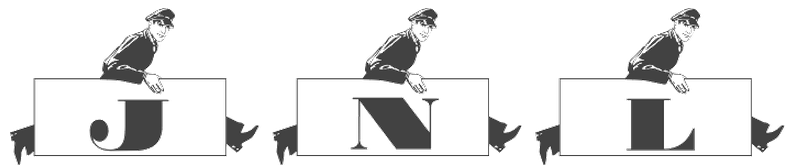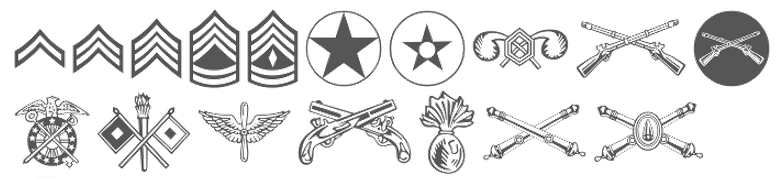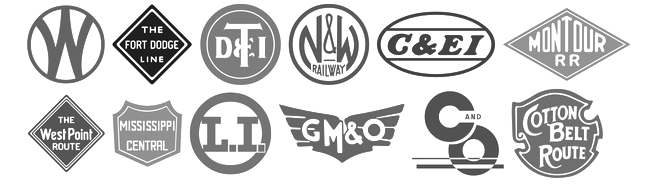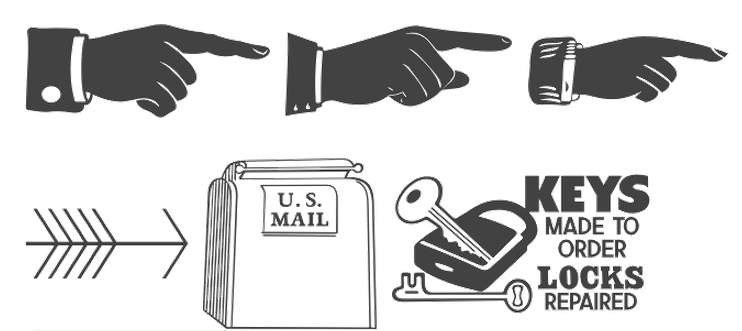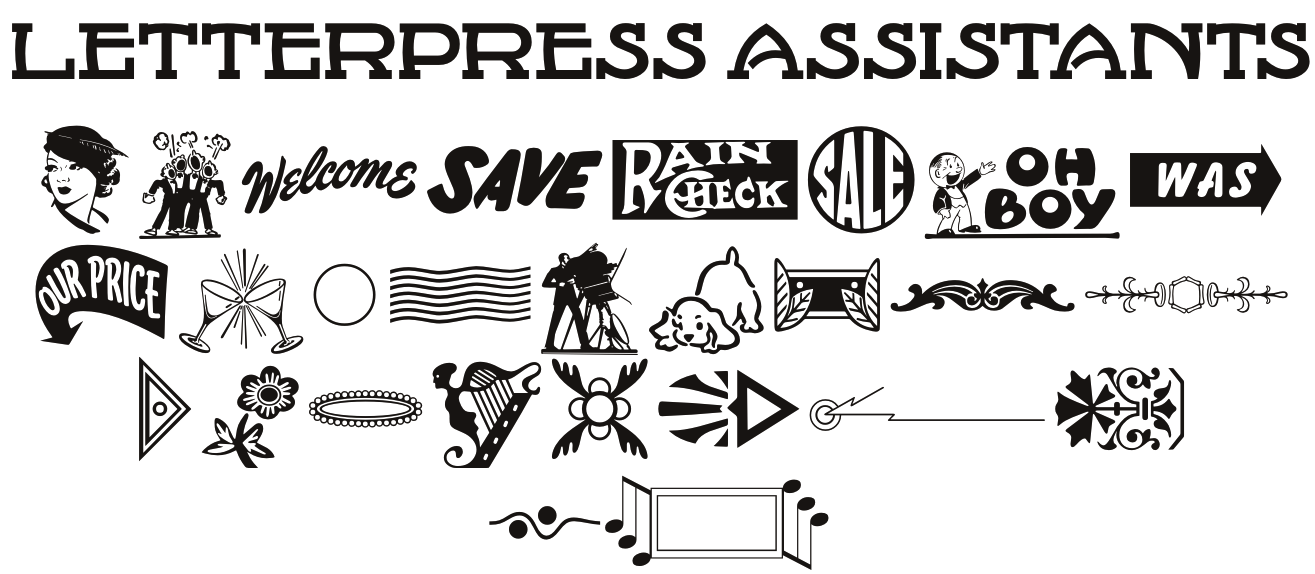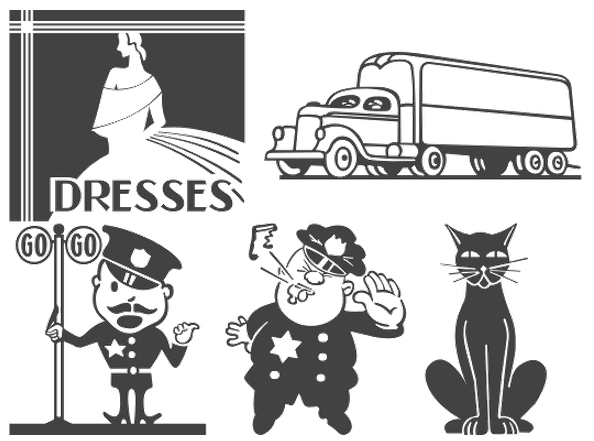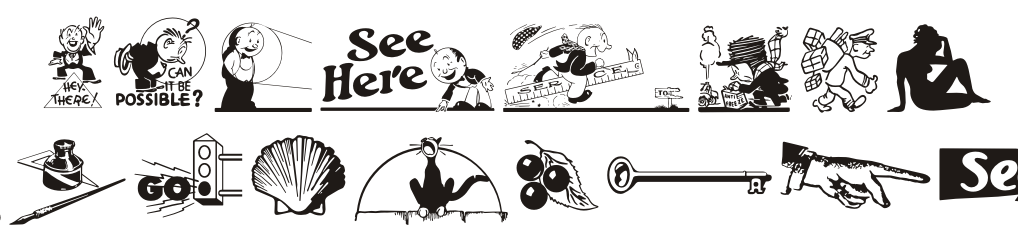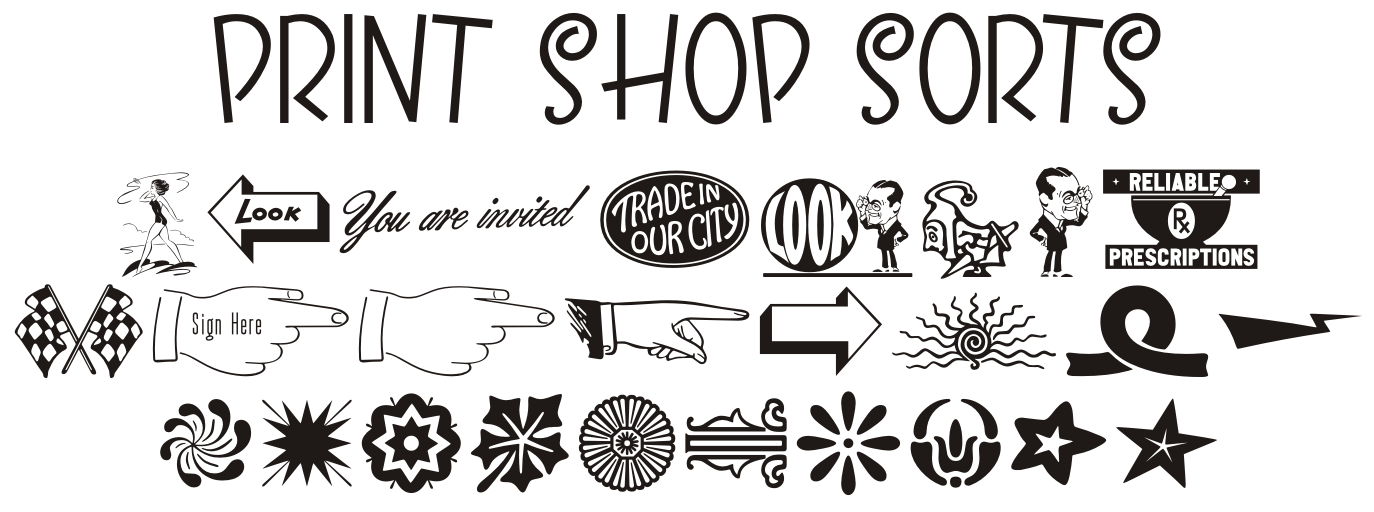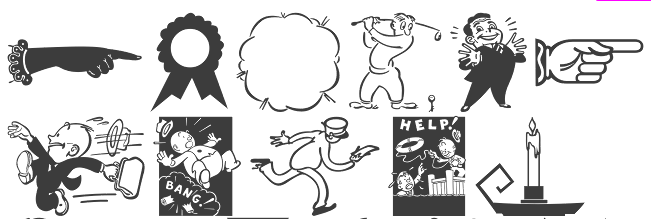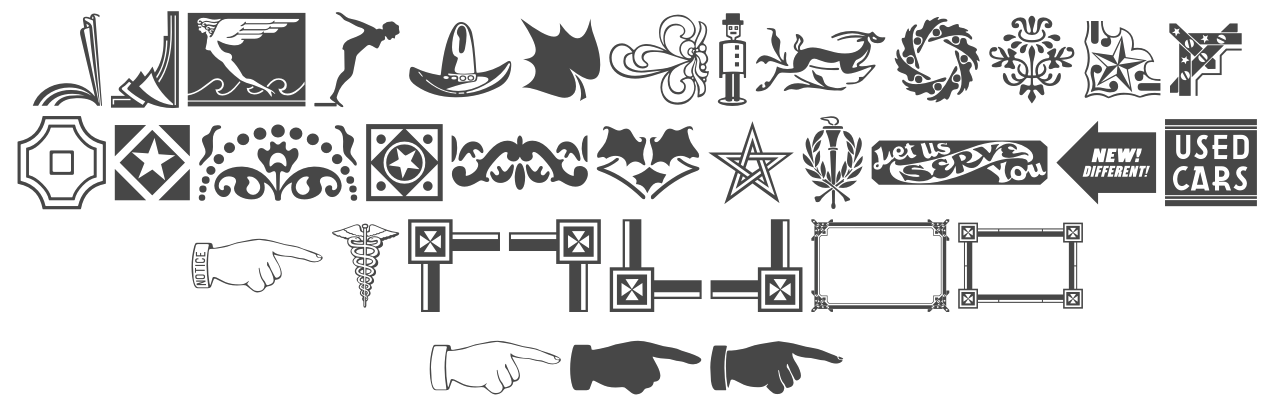
Before 2006, Jeff Levine was mostly known for his free dingbats, having made over one hundred of them. He keeps making them, but now commercially, and less frequently. The list is long though: Dingbats: 50s Yesterdings, Action is the Sequel, ActionIsJL, Alpha Test, Another Dingbat Font JL, Antique Decorations JNL (2012), Antique Embellishments JNL (2009, nice 1800 style dings, including a great fist), Antique Ornaments JNL (2009), Antique Stencils JNL (2013), Apartment-Life-JL, Artsy Parts JL, Attention Getters JNL (2009), Auto-Store-JL, Bachelor Pad, Bank-Visit-JL, Bijou, Boat Decals JNL (2008, squarish), BookshelfTitlesJL, BottomsUp!JL, Buttons-and-Switches-JL, Carnival Days, City-Signs-JL, Clown Alley JNL (2009, clown faces), Cobb-Shinn-Stock-Cuts (7 fonts), Collected-Dings-JL, Columbia Shuttle Memorial Font (2003), CroakersJL, DecoPics, Decorative Arrows JNL (2011), Decorative Elements JL, Dekka Dense, Desk Draswer JNL (2010), Ding Dong Dingbats, Dingdangits JNL, Dingfont100JL, Dingits JNL (2009, flags), DiskettesJL, Doctor's-Dings-JL, Dont Bug Me JNL (2009), Double Nines JNL (2011, a domino tile font), Drug-Store-Items-JL, ElectricalItemsJL, Error-MessagesJL, Even More Dings JL, FloorTilePatternsJL, FontCollectingJL (2003), Frantic, FunInTheSunJL, Funny-Faces-JL, GoingPostalJL, Got A Ding For You JL, Graphic Arts JL, Grocery-Items-JL, Handbill JNL, Hurricane-Preparations-JL, It's Your Ding JL, JeffreyPrintJL (8 fonts), JewishCultureJL, Kilroy Was Here JL (very funny), Law-and-Order-JL, Leathercrafter JNL, Lifeline, LittleBalerina, Loung-Lizards-Lite-JL, Messages&Memos JL, Miscellany JNL (2012), Mixed Bag O' Dings JL, Monthly Calendar JNL, Mordings JNL (2010: this includes weather dings, snow dingbats, and a beautiful quill), More Antique Stencils JNL (2013), More Printing Helpers JNL (2010, has some fists), Mr.MuellerJL, Old Favorites JNL (2009, fists), One Ding After Another JL, Outer Space JL, OuterSpace, Picnics-&-Parties-JL, Pictora JNL (2009, dings), Point Made JNL (2011, fists and arrows), Point Taken JNL (2009, fists), Price Tag JNL (2011), Print Enhancers JNL (2013), Print Helpers JNL (2013), Printers Parts JNL (2013), Printing Extras JNL (2009), Print Shop Parts JNL (2012), Prismatiq JNL, Ranger Ray's Rocketeers JL, Remnants-JL, Remnant Sorts JNL (2011: contains many nice fists and plumes), Screen Scrawls JL, Sendit Safely JNL (2010), Shopping Center JL, Sign Helpers JNL (2009, a collection of silhouette images carefully redrawn from two distinct sources, the Webway sogn kits of the Holes-Webway Company of St. Cloud, MN, and the cling vinyl sign kits made in the 1950s and 1960s by the Joseph Struhl Company (now known as Magic Master Industries)), Silhouettes&StuffJL, Silly-Symbology-II, Silly-Symbology-JL, SimplerTimesJL, Sixties Symbols JNL (2009), SmallTalkJL, Son of the Bride of Foo JL, Star Time, Star Time 3 and 4, Star Time Too, Storm-Track-JL, SunDings, Sundings2JL, SymbologicaJL (2003, has smilies), TaxingMomentsJL, TeeVeeSet, These Foolish Dings JL, Things-Collected-JL, TimePiecesJL, Toddler JNL, Top 40 JL, Trinkets JL, Typesetter Ornaments JNL (2012), VitaminShopJL, Whatzis JNL (2009, question marks), Winner-Take-All-JL. - Alphadings: Looky Here JNL (2009, alphadings), Love Notes JNL (2011), Sensual Initials JNL (2009, alphadings after his own French Art Initials JNL), Suninitials JNL (2008: alphadings), Eurasian Stenciinitials JNL (2010).
Jeff Levine: Dingbats and Alphadings